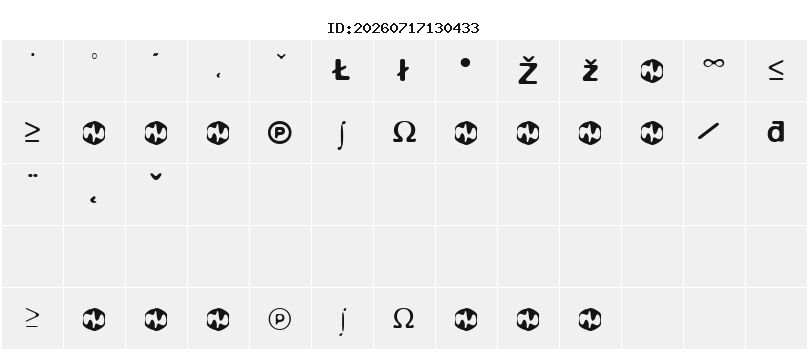
• Font Name: BlurExtra
• Font Style: Thin
• Full Font Name: BlurExtra
• PostScript Name: BlurExtra
• Character Count: 90
• Copyright: * Neville Brody & The Font Bureau 1991; 1994 FontShop International
• Manufacturer: Neville Brody & The Font Bureau ; FontShop International
BlurExtra.ttf is a modern, elegant sans-serif font designed for ultimate readability and visual harmony. Perfect for branding, headlines, web design, and print materials.